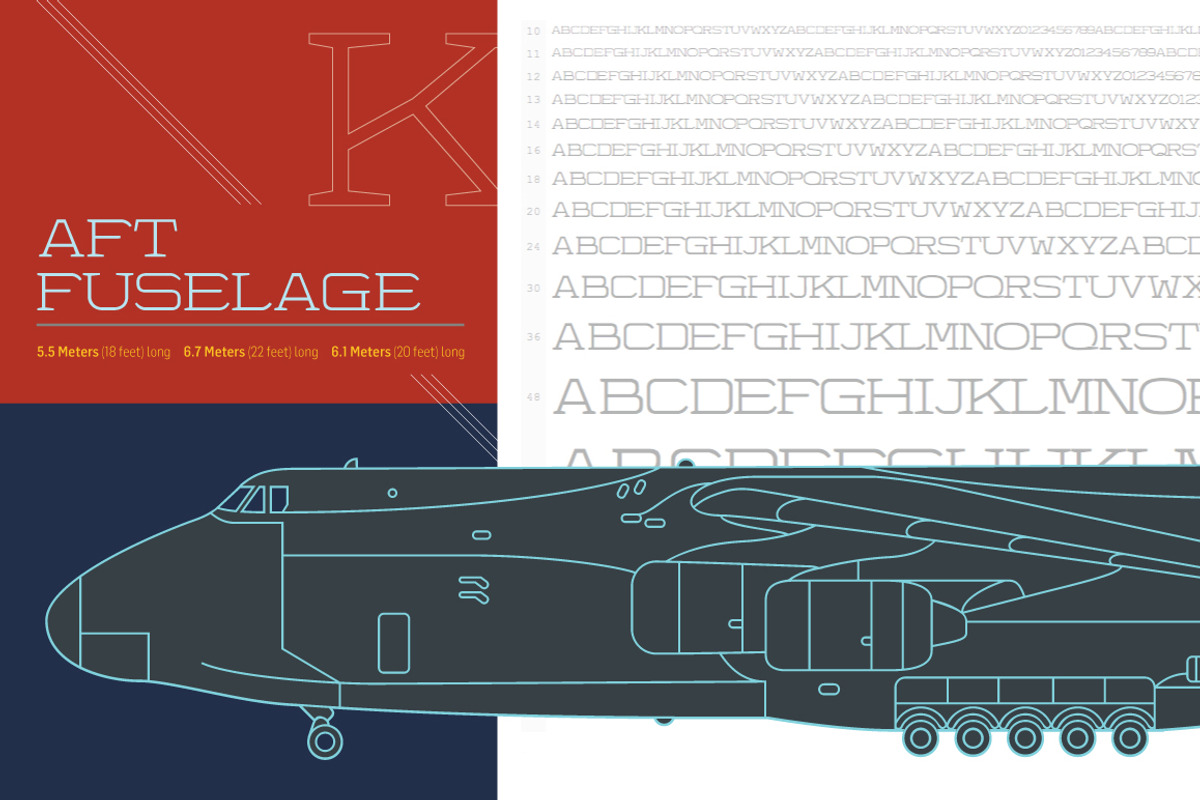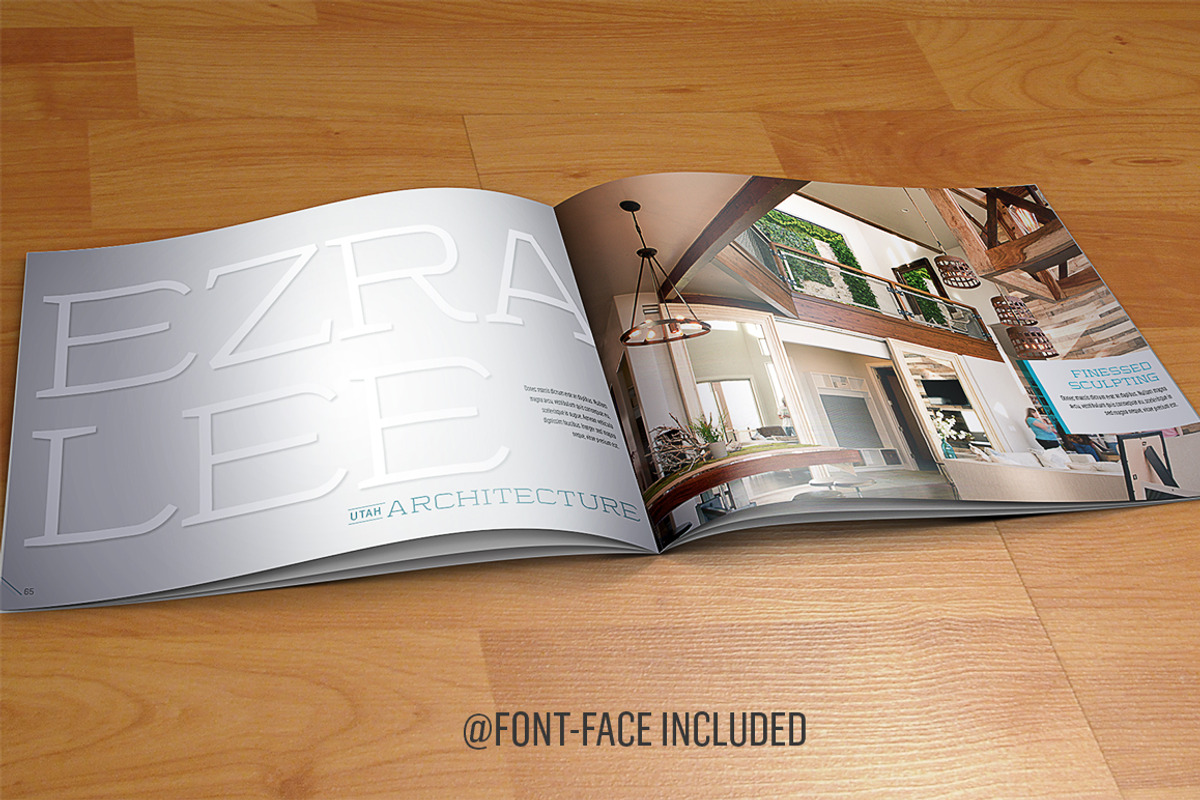
Stendo Extended Light - Wide Font
Stendo Extended Light - Wide Font by Stypeface is a font selected for branding, posters, packaging, typography.
- Stendo 200 Light
Why Stendo Extended Light - Wide Font is worth a look
Stendo Extended Light - Wide Font by Stypeface fits naturally into Branding, posters, packaging, typography.